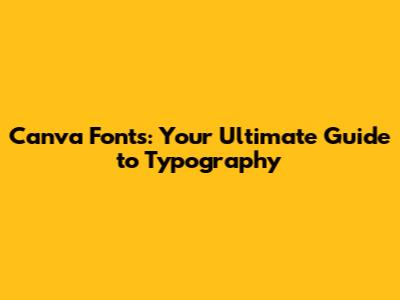
Canva Fonts: Your Ultimate Guide To Typography
Hey design enthusiasts! Ever felt like your Canva designs are missing that special something? You’ve got the colors right, the layout is on point, but the text just… isn't popping? Guys, let me tell you, the secret sauce is often in the fonts! Choosing the right Canva fonts can seriously elevate your graphics from “meh” to “WOW!” It’s like picking the perfect outfit for a first impression – the font sets the entire tone and personality of your design. Whether you’re creating a social media post, a presentation, a flyer, or even a logo, the typography you use speaks volumes before anyone even reads a single word. In this ultimate guide, we're diving deep into the wonderful world of Canva fonts. We’ll explore how to find them, how to use them effectively, and how to choose the ones that best represent your brand or message. So, buckle up, grab your favorite beverage, and let’s make your text sing!
Why Fonts Matter in Your Canva Designs
Alright, let's get real for a sec. Why should you even care about Canva fonts? I mean, it's just text, right? Wrong! Think about it – have you ever seen a brand with a super playful, bubbly font and immediately thought “fun and energetic”? Or perhaps a sleek, minimalist font and pictured “sophisticated and professional”? That's the power of typography, my friends. Fonts are visual cues that communicate emotions, industries, and even personality traits. In the context of Canva, which is all about making design accessible to everyone, understanding fonts is a game-changer. Canva fonts offer a massive library, but not all fonts are created equal, and using them wisely is key. A poorly chosen font can make your message confusing, unprofessional, or even unreadable. Conversely, a well-chosen font can grab attention, convey trust, build brand recognition, and make your content way more engaging. For instance, using a script font for a formal business proposal? Big no-no! But for a wedding invitation? Absolutely perfect! The same goes for using a bold, blocky font for a delicate floral pattern versus a light, airy script for a construction company. It’s all about context and audience. When you’re working in Canva, you have the power to influence perception with every single letter. So, investing a little time in understanding Canva fonts and how they work will pay off massively in the quality and impact of your designs. It’s not just about making things look pretty; it’s about effective communication. Canva fonts are your visual vocabulary, and learning to use them is like becoming fluent in the language of design.
Navigating the Vast World of Canva Fonts
So, you've opened up Canva, ready to whip up some magic, and you're staring at the text tool. You click on the font dropdown, and BAM! A seemingly endless list appears. It can be a bit overwhelming, right? But don't panic, guys! Navigating the vast world of Canva fonts is actually pretty straightforward once you know what you're looking for. Canva offers a huge selection of free and premium fonts, catering to every possible style and need. You've got your classic serifs, like Times New Roman or Georgia, which exude tradition and reliability – perfect for more formal documents or a vintage feel. Then there are the sans-serifs, like Arial or Open Sans, which are clean, modern, and super readable, making them ideal for web content, presentations, and branding that wants to feel contemporary. Don't forget the script fonts! These range from elegant and flowing calligraphy to casual, handwritten styles, great for invitations, personal branding, or adding a touch of personality. And for those who want to make a bold statement, display fonts come into play – think quirky, decorative, or thematic fonts that are perfect for headlines, posters, and event graphics where you want to stand out. Canva even has handwriting fonts that can add a personal, authentic touch to your designs. The key here is to use these different categories strategically. For body text, always prioritize readability. Stick with classic serifs or clean sans-serifs. For headlines and titles, you have more freedom to experiment with bolder, more stylized Canva fonts that grab attention. Remember, Canva makes it super easy to preview fonts; just hover over them, and you'll see how your text looks. You can also filter fonts by style or category, which is a lifesaver when you're on a deadline. Plus, if you have a specific font in mind that isn't in Canva's library, you can even upload your own! Seriously, the possibilities with Canva fonts are practically limitless. Understanding these categories will help you quickly narrow down your options and find the perfect font for any project.
Serif vs. Sans-Serif: The Timeless Debate
Let's talk about the OG font families: Serif and Sans-Serif. This is a fundamental concept in typography, and understanding it will massively improve your Canva font choices. So, what’s the deal? Serif fonts are those with little decorative strokes, or